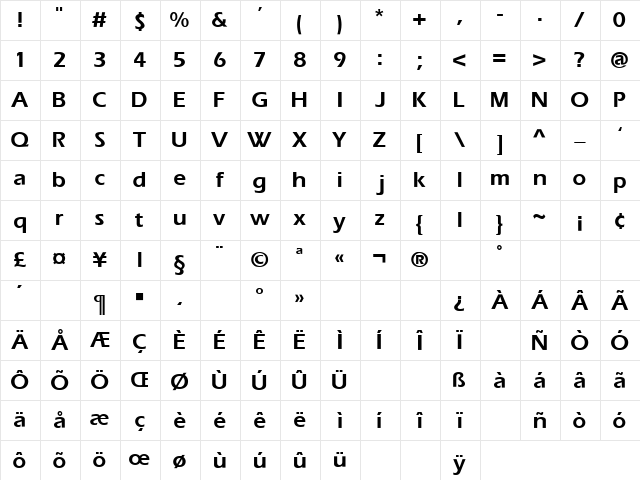
Eras-Black SemiBold Font Preview
Eras-Black SemiBold
Design Context for Eras-Black Typeface
Eras-Black offers clean, dependable letterforms without strong stylistic allegiance, making it a practical choice for designers who need flexibility. The heavy weight commands attention and anchors typographic hierarchies.